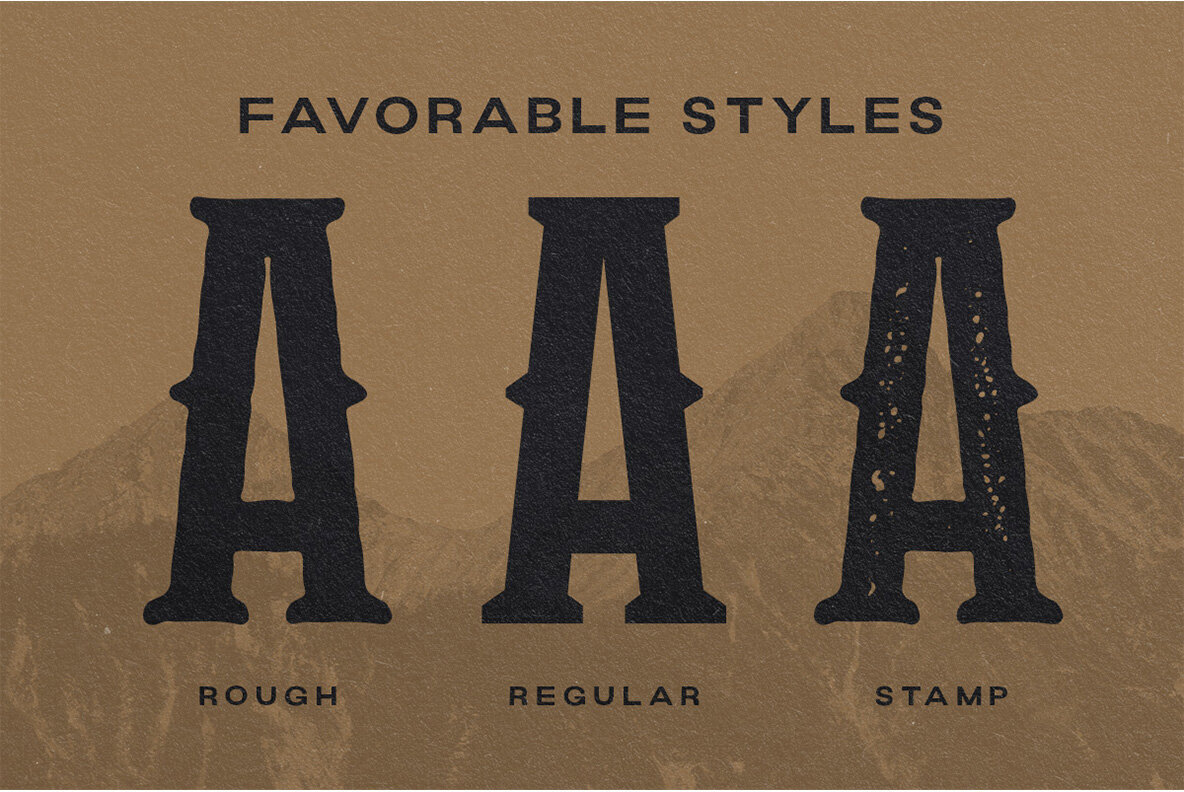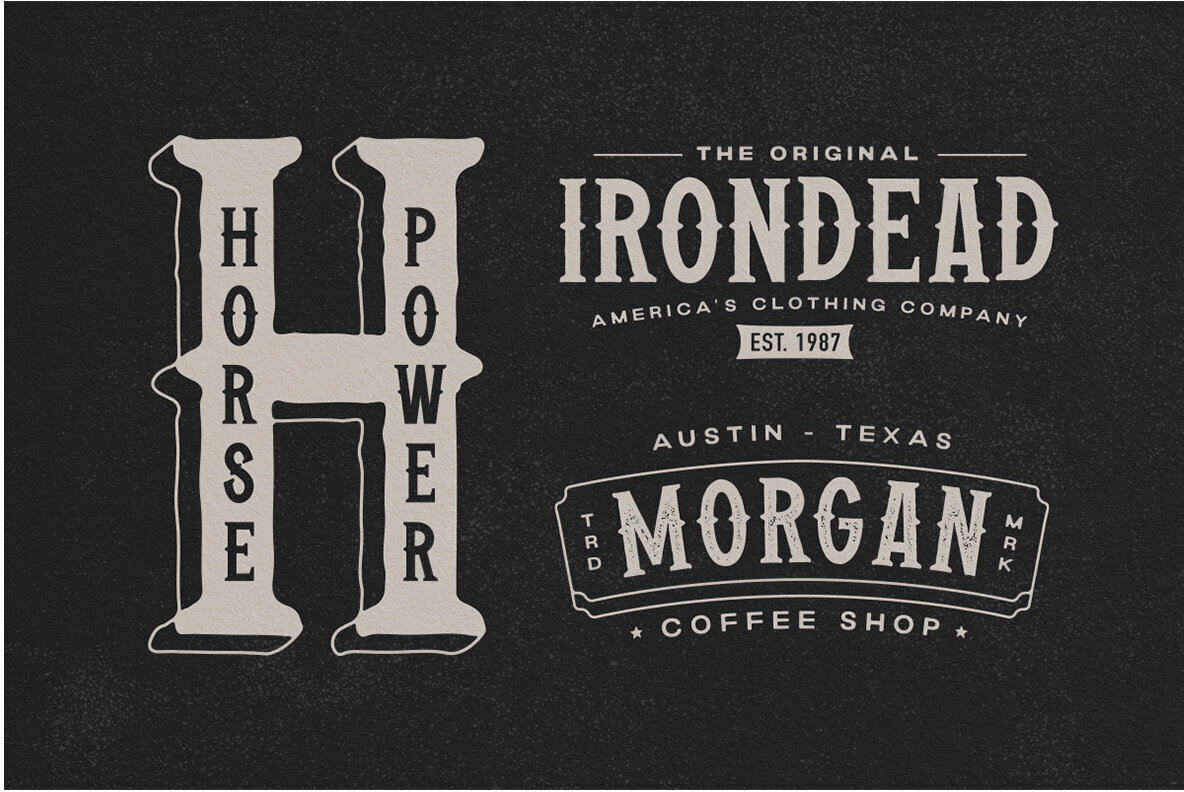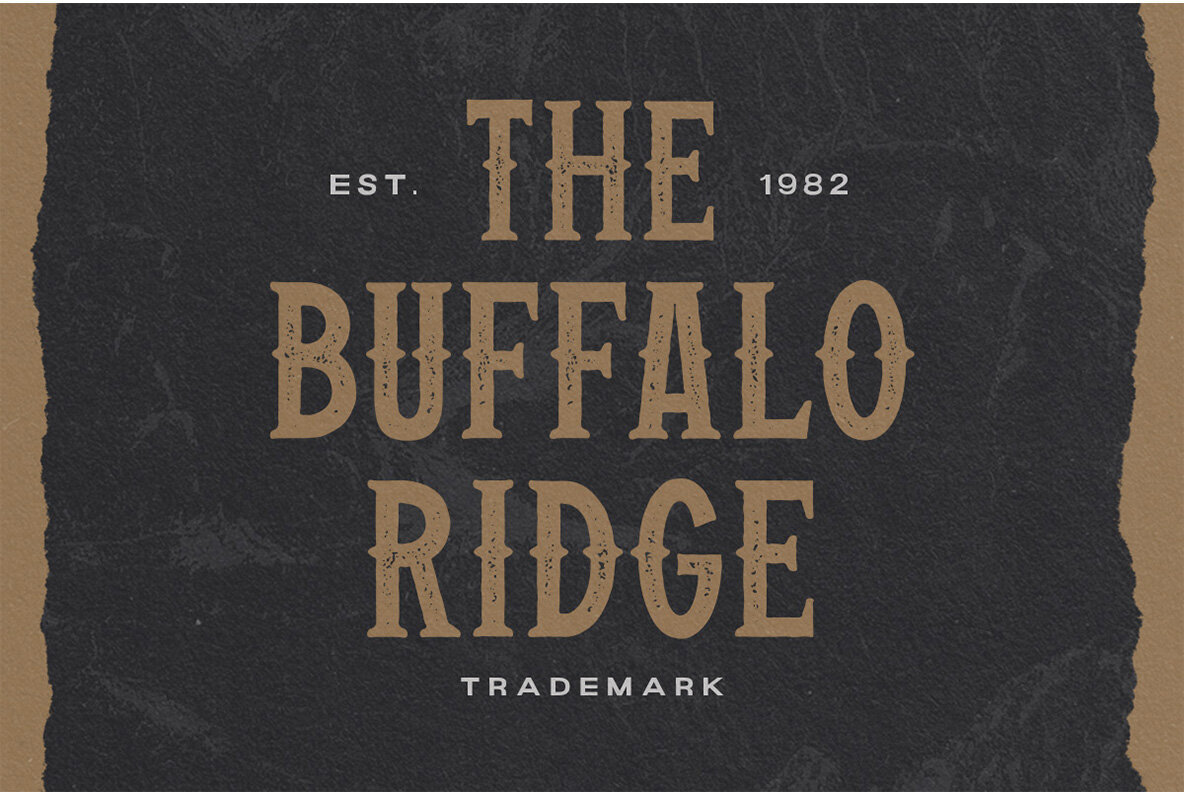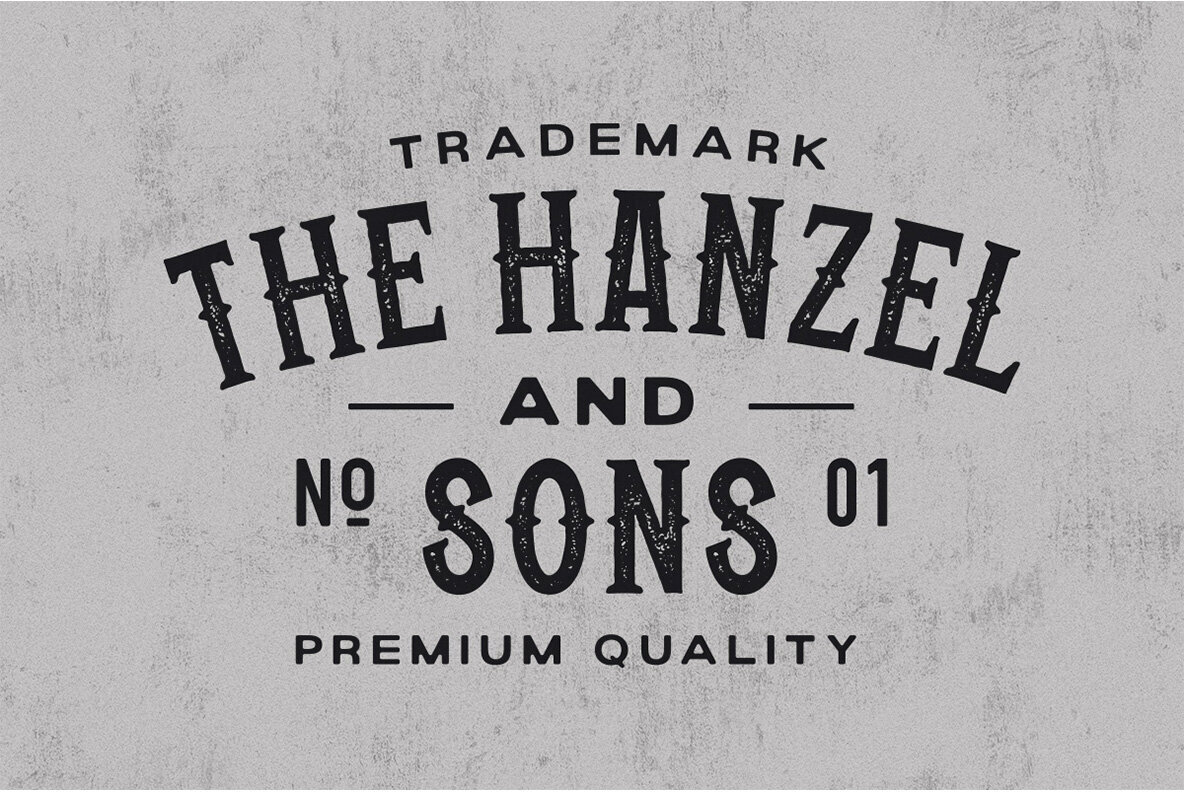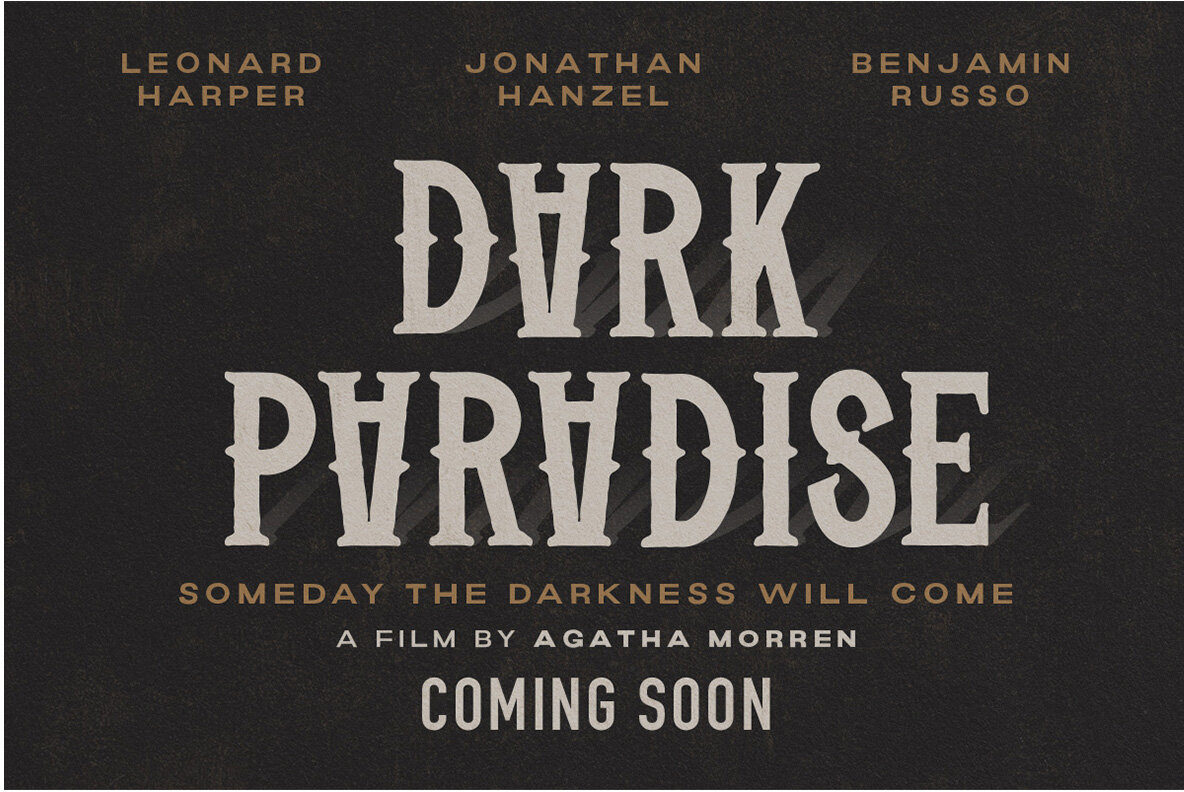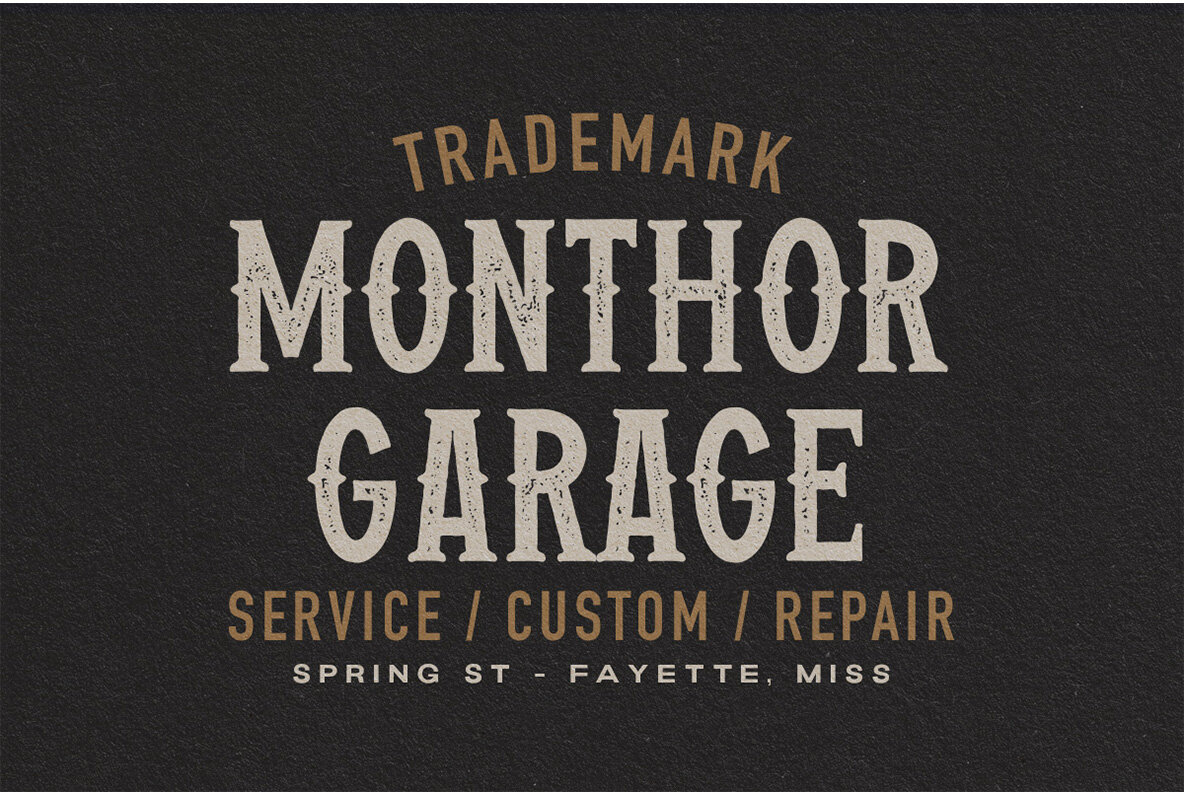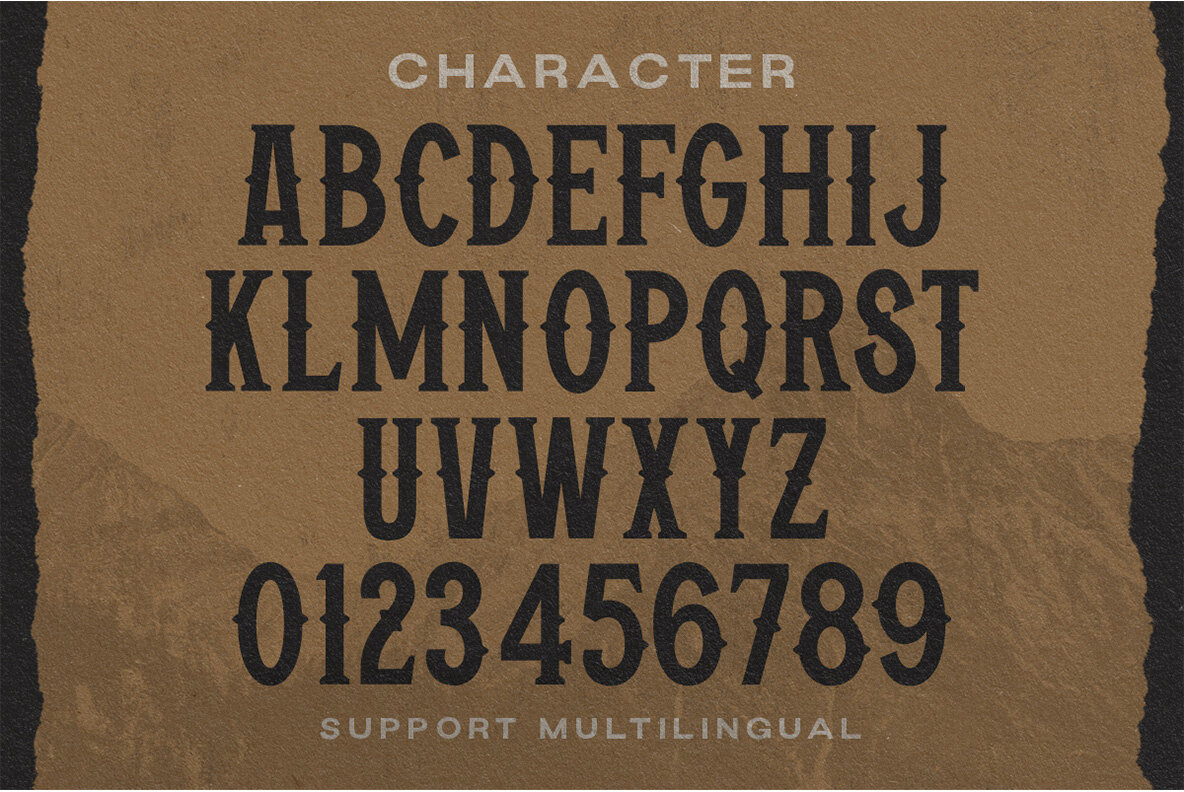
Favorable Font
Favorable is a serif typeface with an old-fashioned look and feel. It comes in three styles: regular, rough (for signs & logos), or stamp for titles.
This versatile font can be used on anything from invitations to billboards!